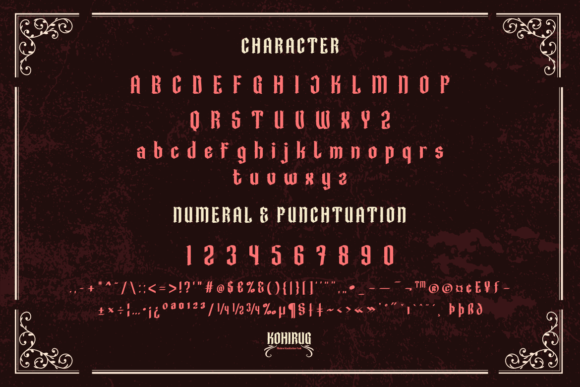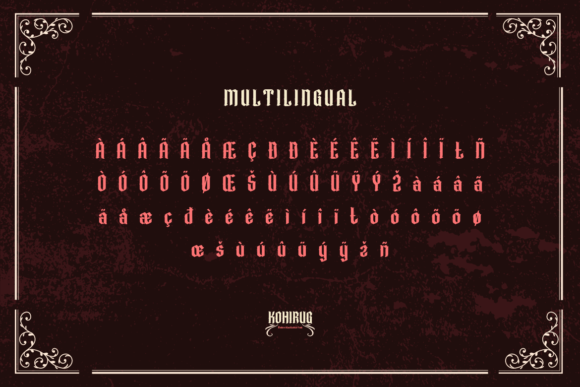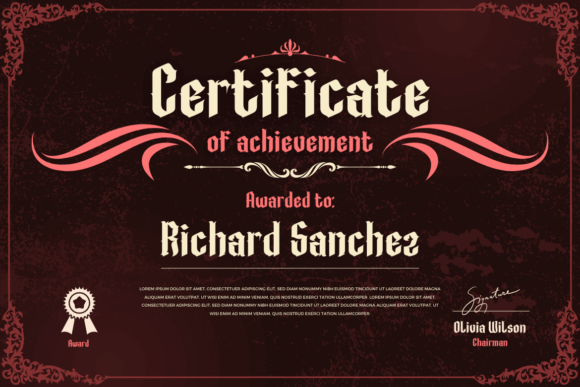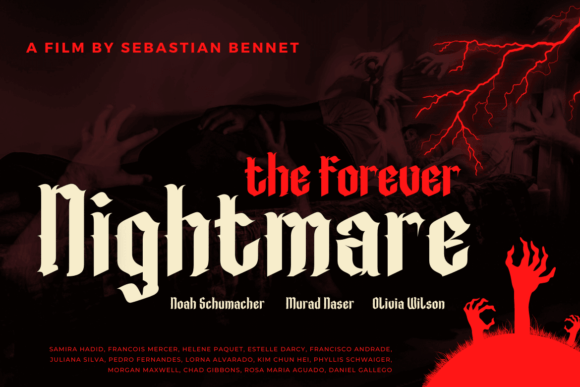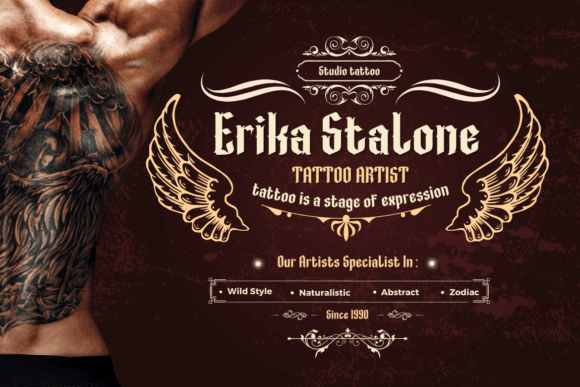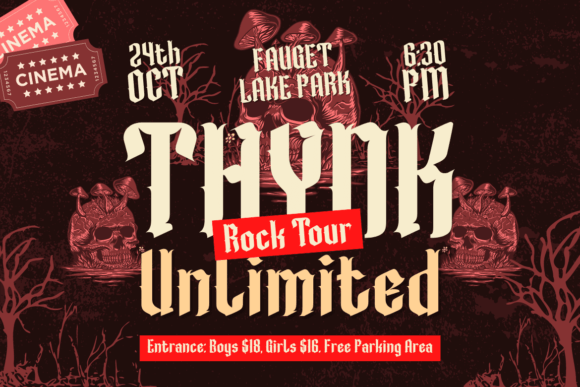
Introduction to Kohirug Font
As designers, we’ve all been there – staring at a blank canvas, waiting for inspiration to strike. And then, it hits you – the perfect font to elevate your creative project. For those seeking a timeless blackletter font that exudes style and sophistication, the Kohirug Font is a game-changer. This stunning font boasts striking details on each side of the lettering, giving it a strong, confident personality that demands attention.
What sets Kohirug apart from other fonts is its high-quality design, making it an invaluable resource for designers. Whether you’re working on a free download project or creating a commercial design, this font is sure to impress. With its versatility and elegance, Kohirug Font is perfect for designers looking to add a touch of classic sophistication to their visuals.
Key Features of Kohirug Font
- Unique, hand-drawn style with a transparent background, offering flexibility in design applications.
- Designed with a high resolution (up to 300 DPI), ensuring crisp and clear display in print and digital media.
- Perfect for use in logos, branding materials, and other design elements where a distinctive, creative touch is needed.
- Includes a comprehensive character set, covering a wide range of languages and characters.
Honest Review: Kohirug Font
I recently came across the Kohirug Font, and I must say it’s a fantastic addition to any designer’s toolkit. This free download has been a game-changer for my creative projects, offering a high-quality font that’s perfect for modern designs.
- Unique and modern design style that’s perfect for trendy projects
- High-quality vector files that can be scaled without losing any detail
- Transparent background, making it easy to use with any design element
- Perfect for creating eye-catching headlines and titles
One thing I’d like to see improved is the font size range. While it’s great for large-scale designs, it can get a bit fuzzy when used for smaller text. ⚠️
Overall, I’m thoroughly impressed with the Kohirug Font. It’s a valuable design resource that’s sure to elevate any creative project. Whether you’re a seasoned designer or just starting out, this font is definitely worth checking out.
Kohirug Font has a transparent background, making it ideal for use on images with complex backgrounds.
Kohirug Font is commonly used in creative projects, such as graphic design, digital art, and web design. Its unique design makes it ideal for use in logos, icons, and other visual elements.